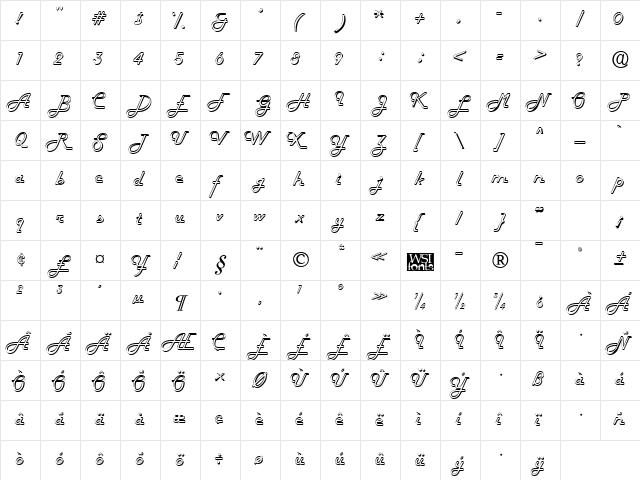
FiftiesHollow Regular
Design Context for FiftiesHollow Typeface
FiftiesHollow is a composed and adaptable typeface that performs quietly and consistently across a wide range of design contexts.